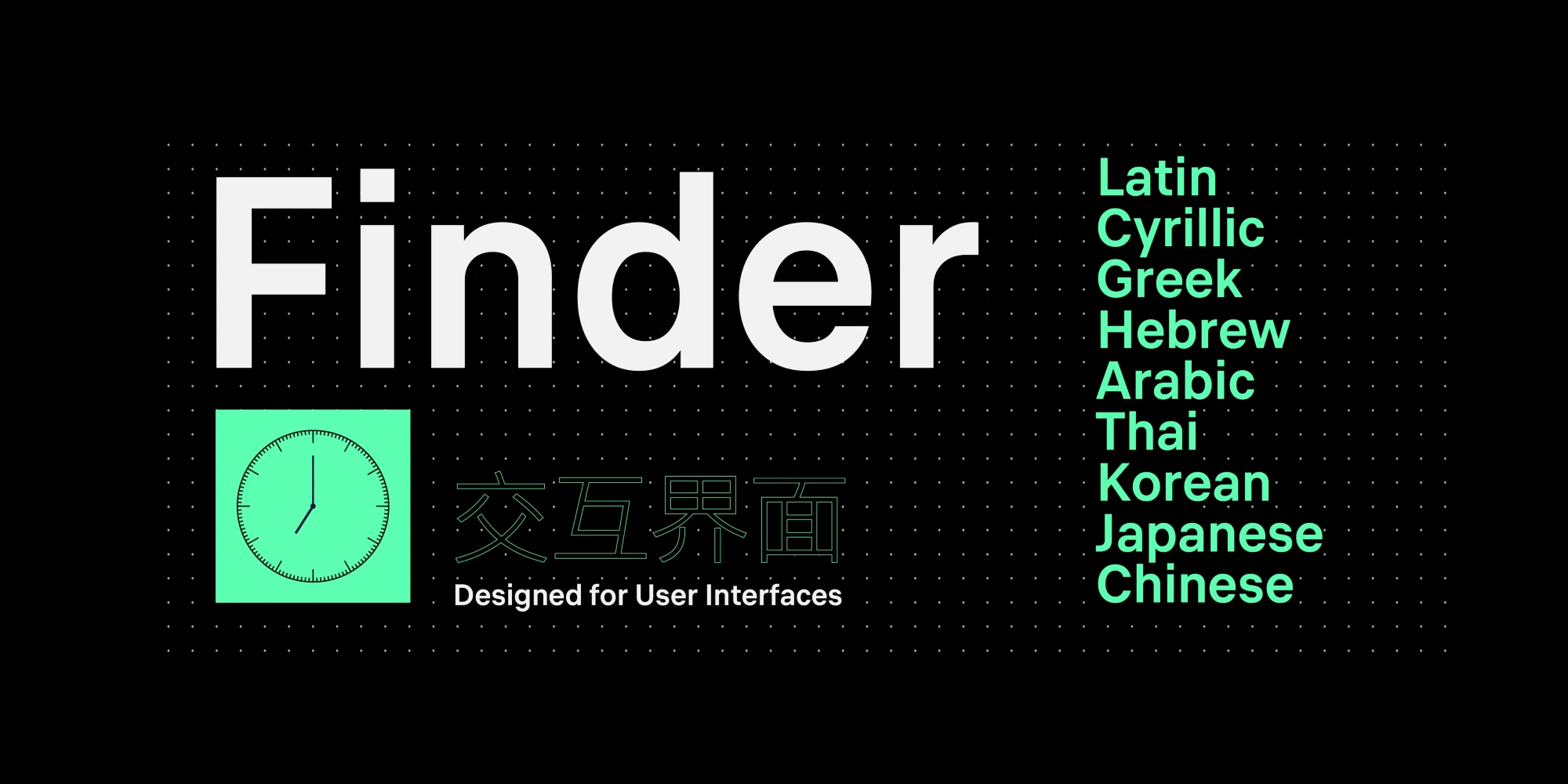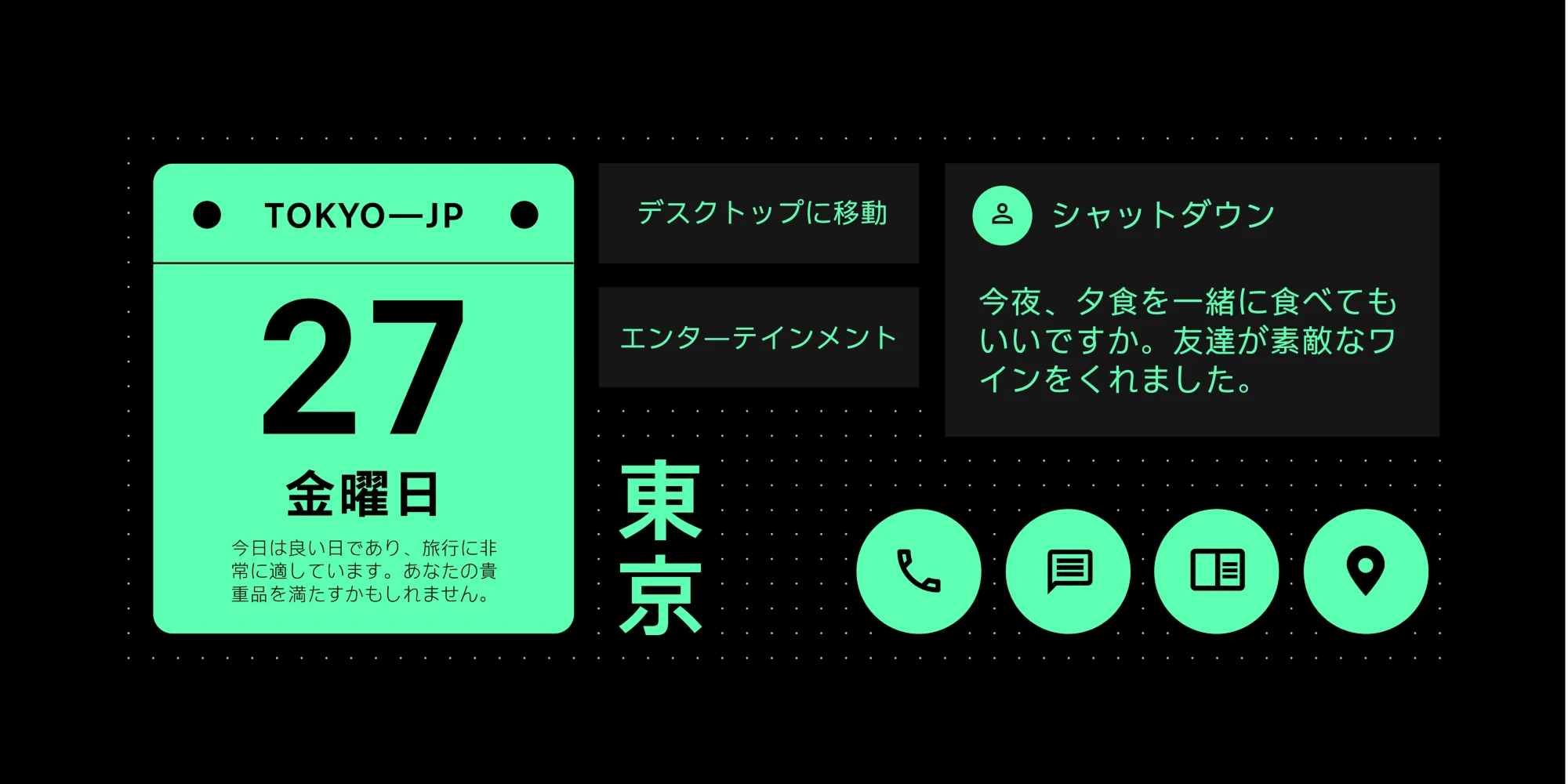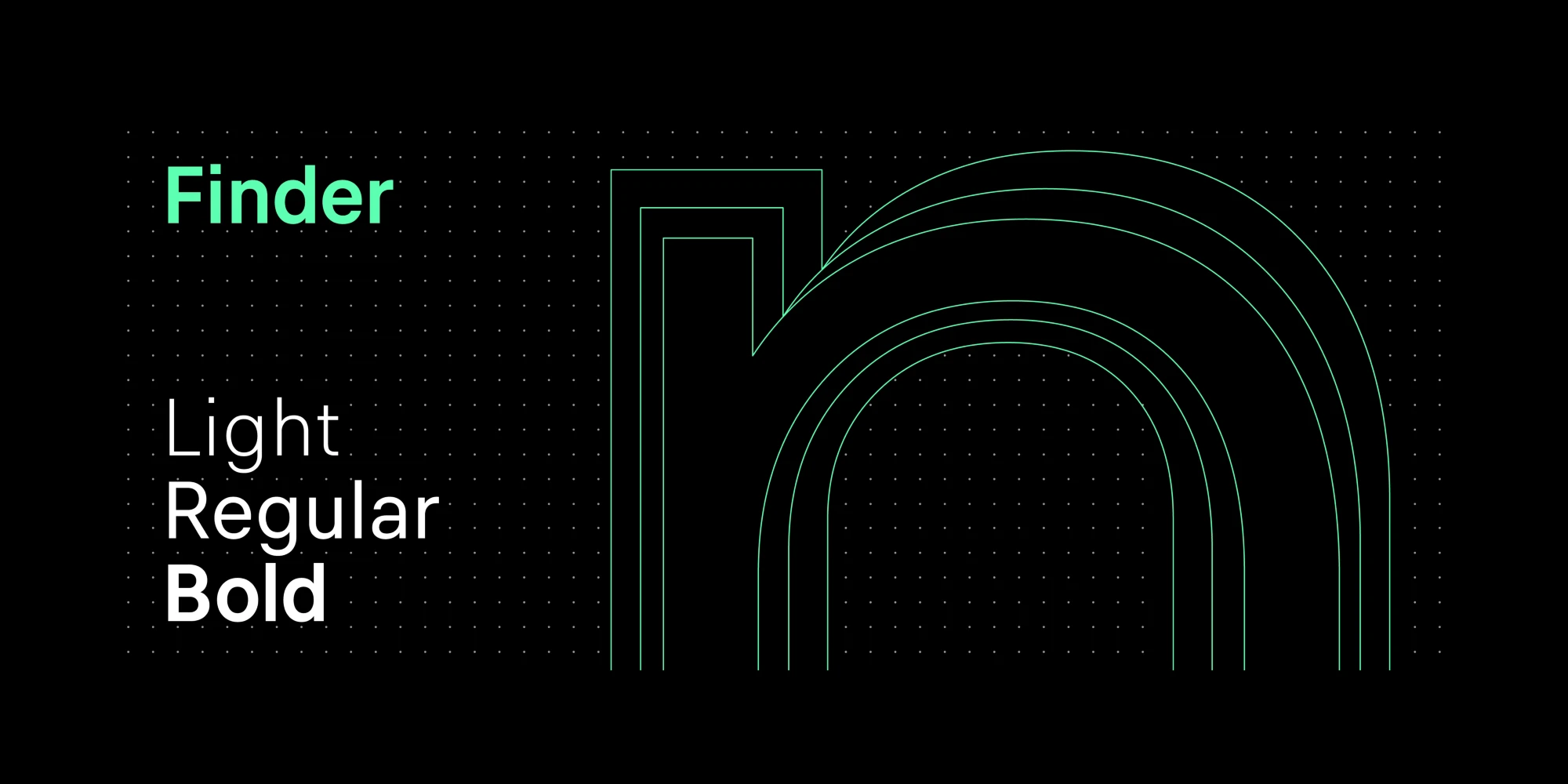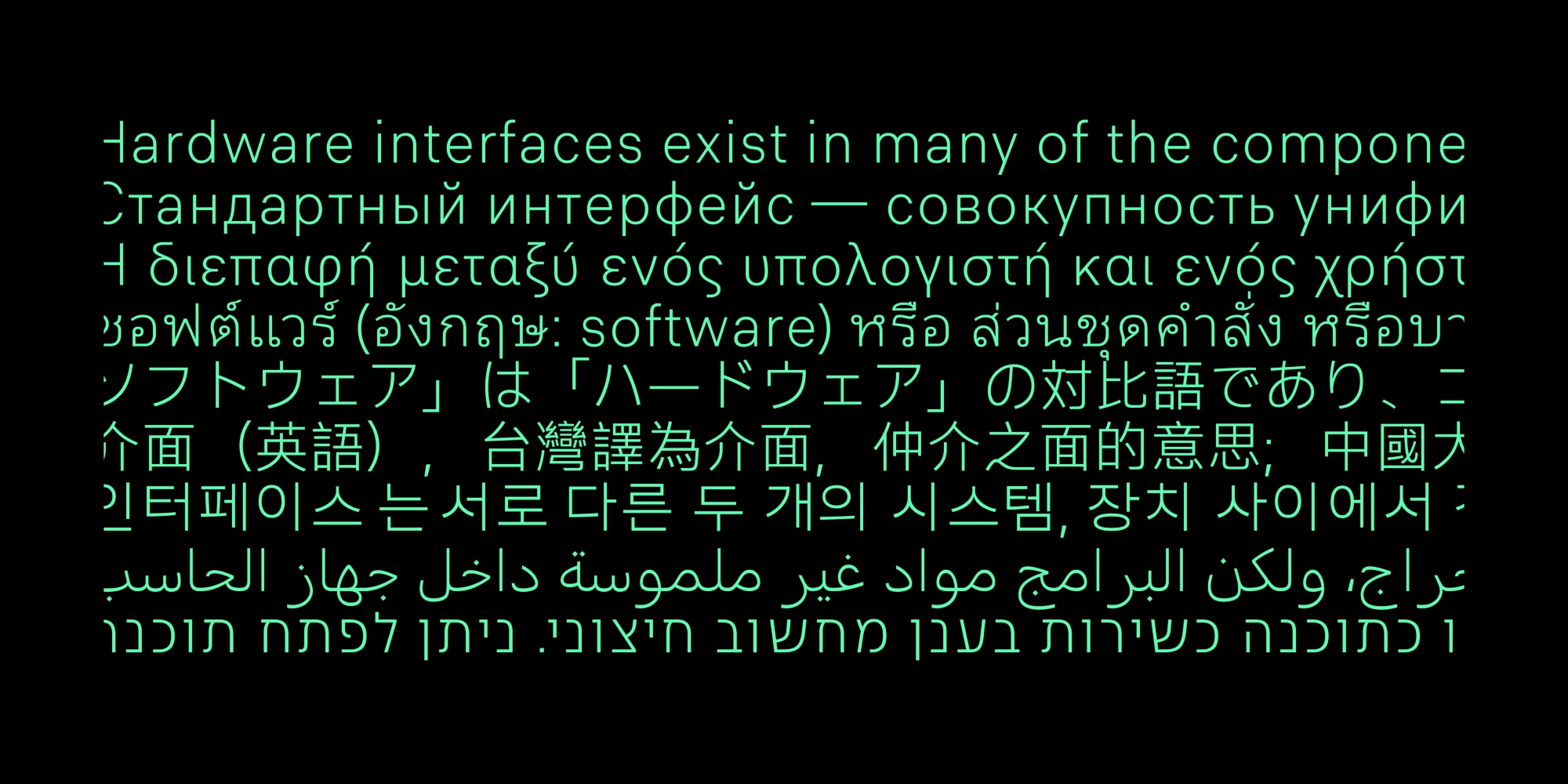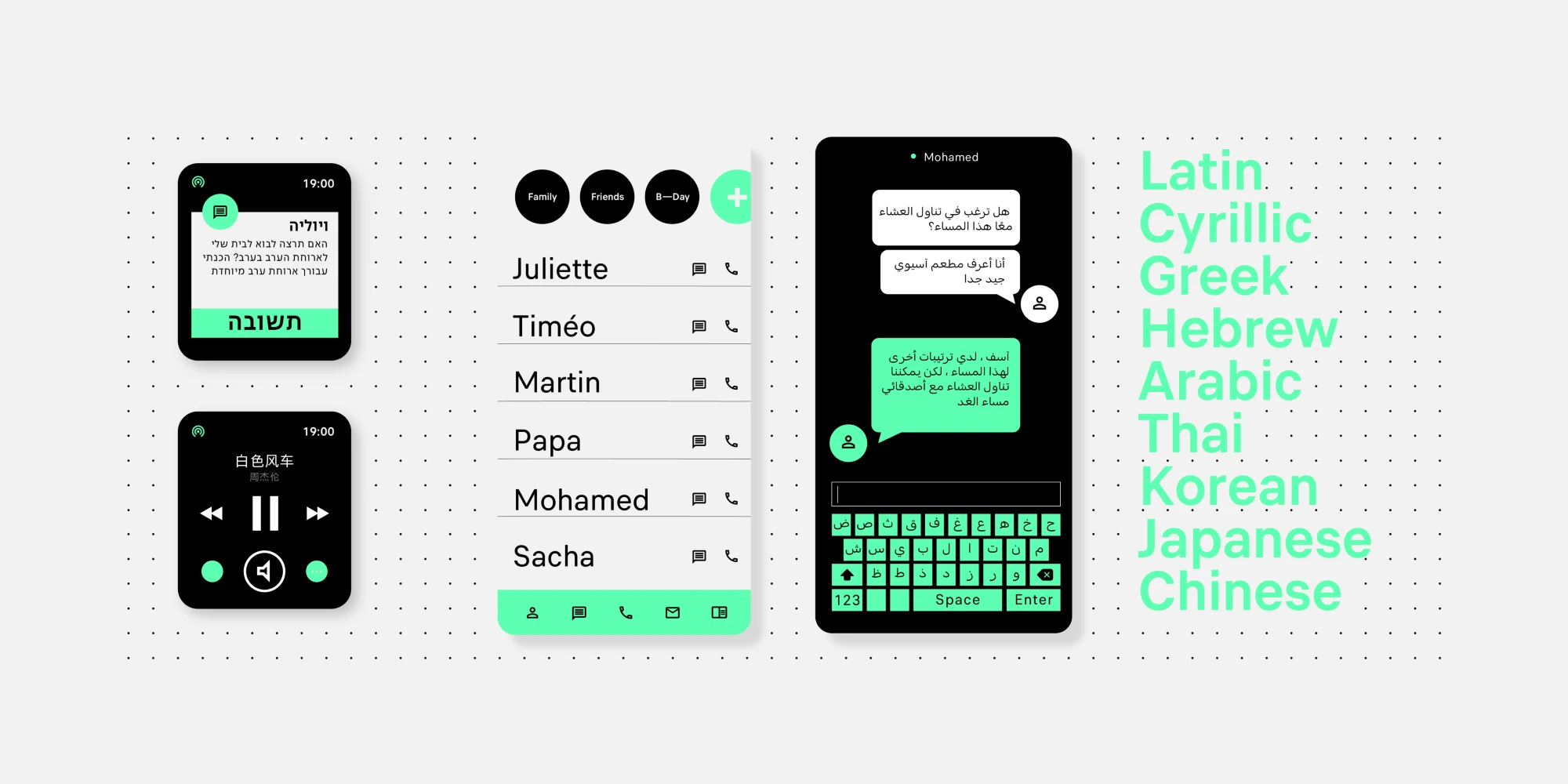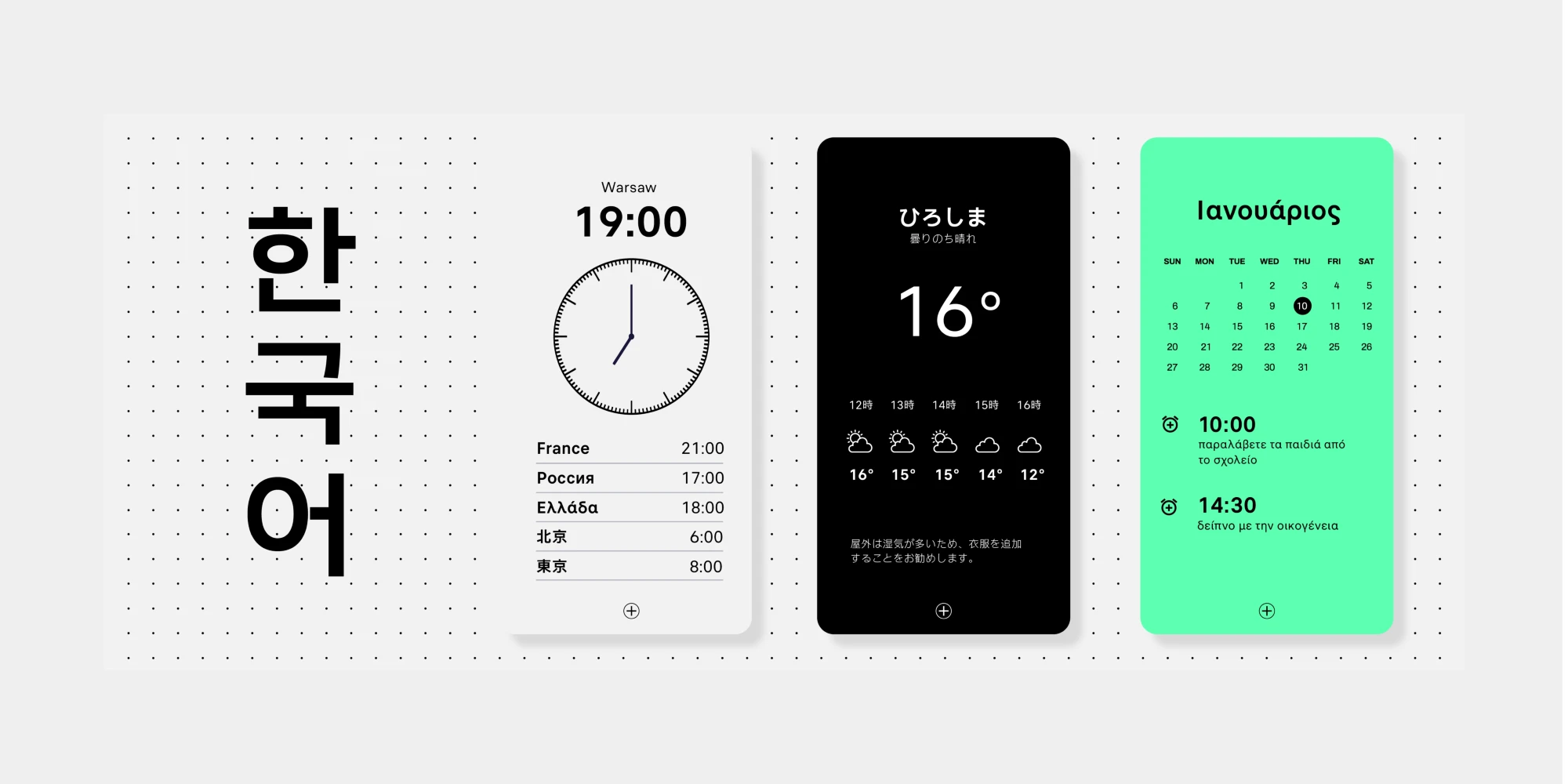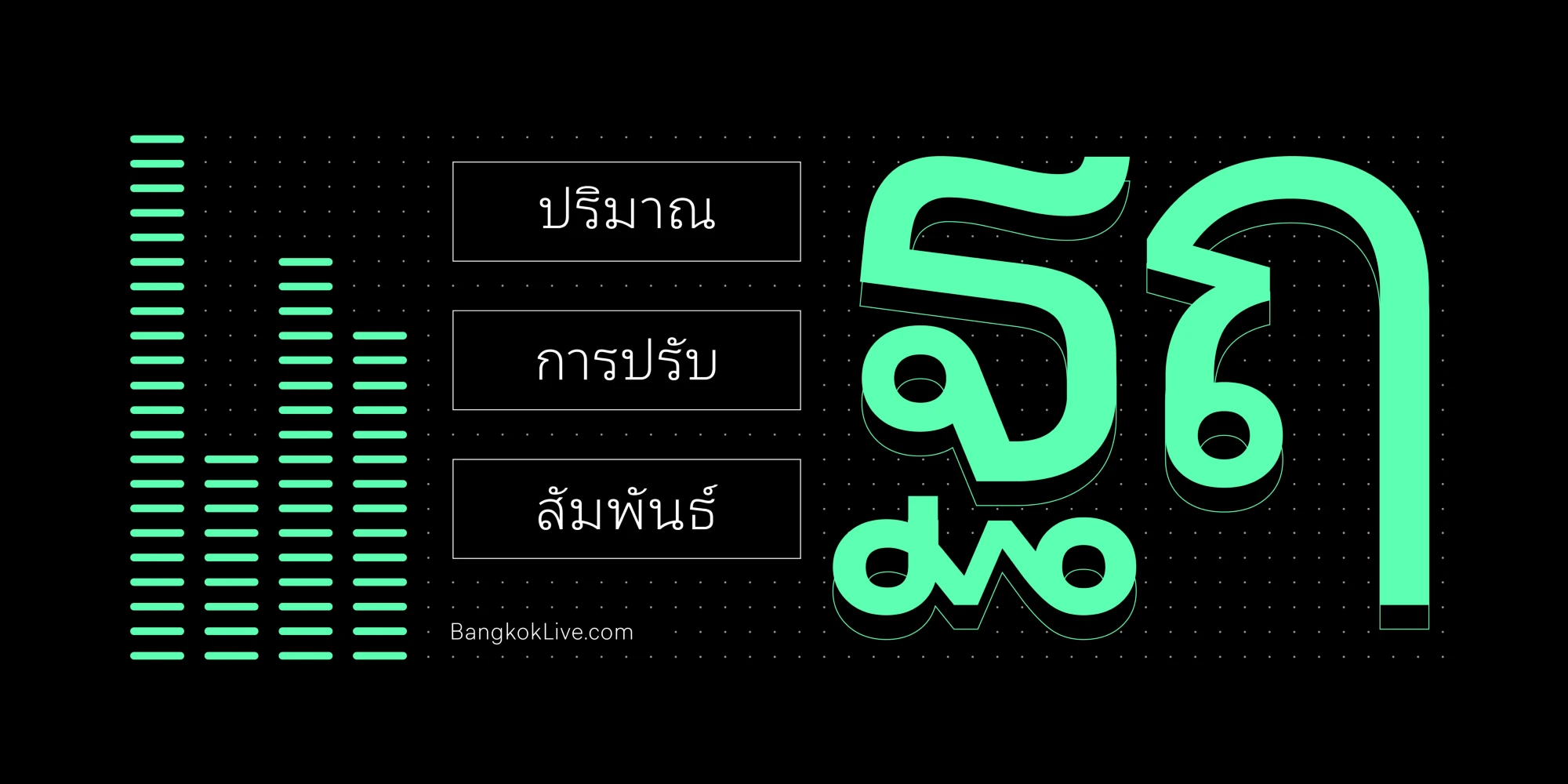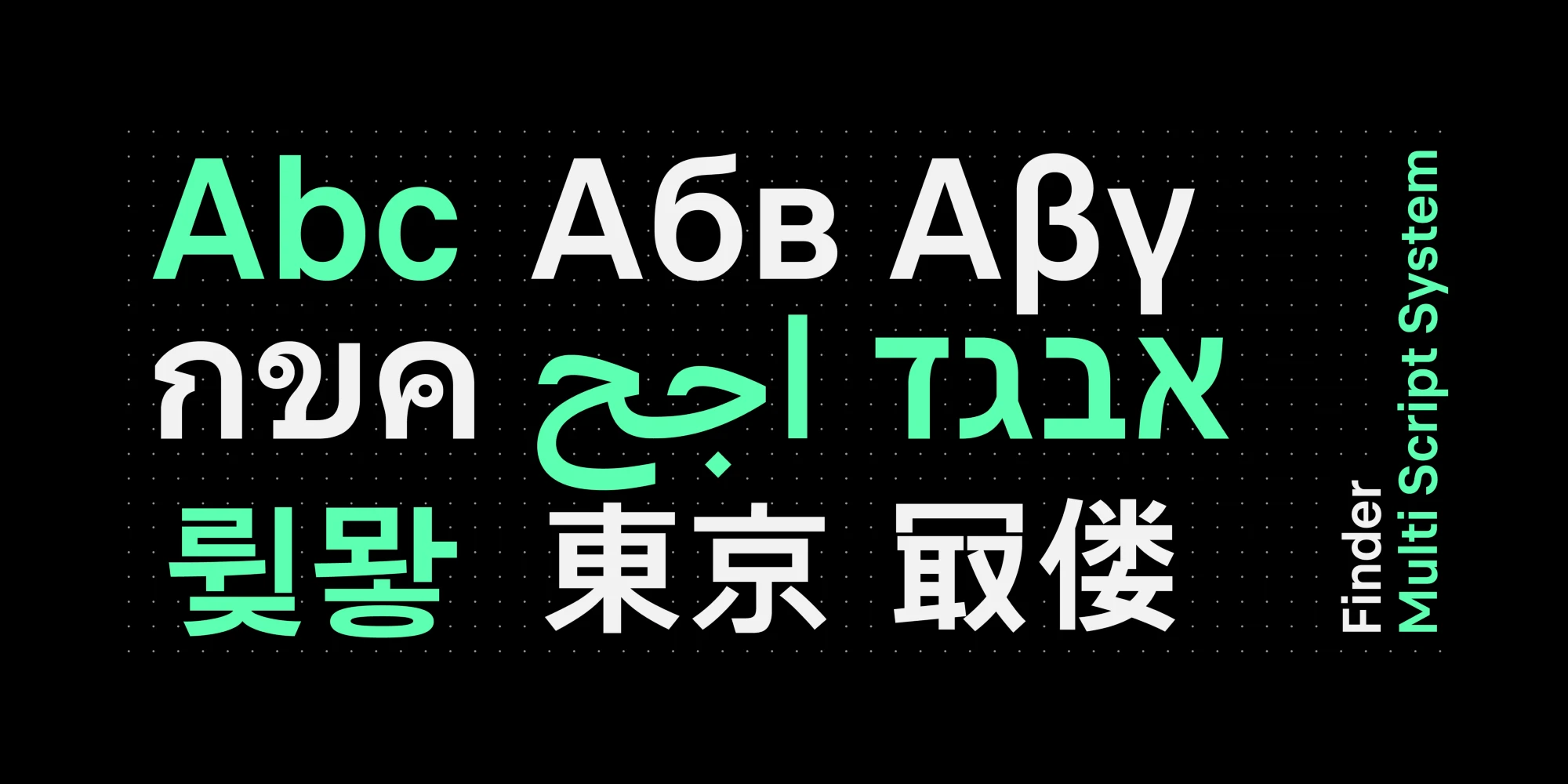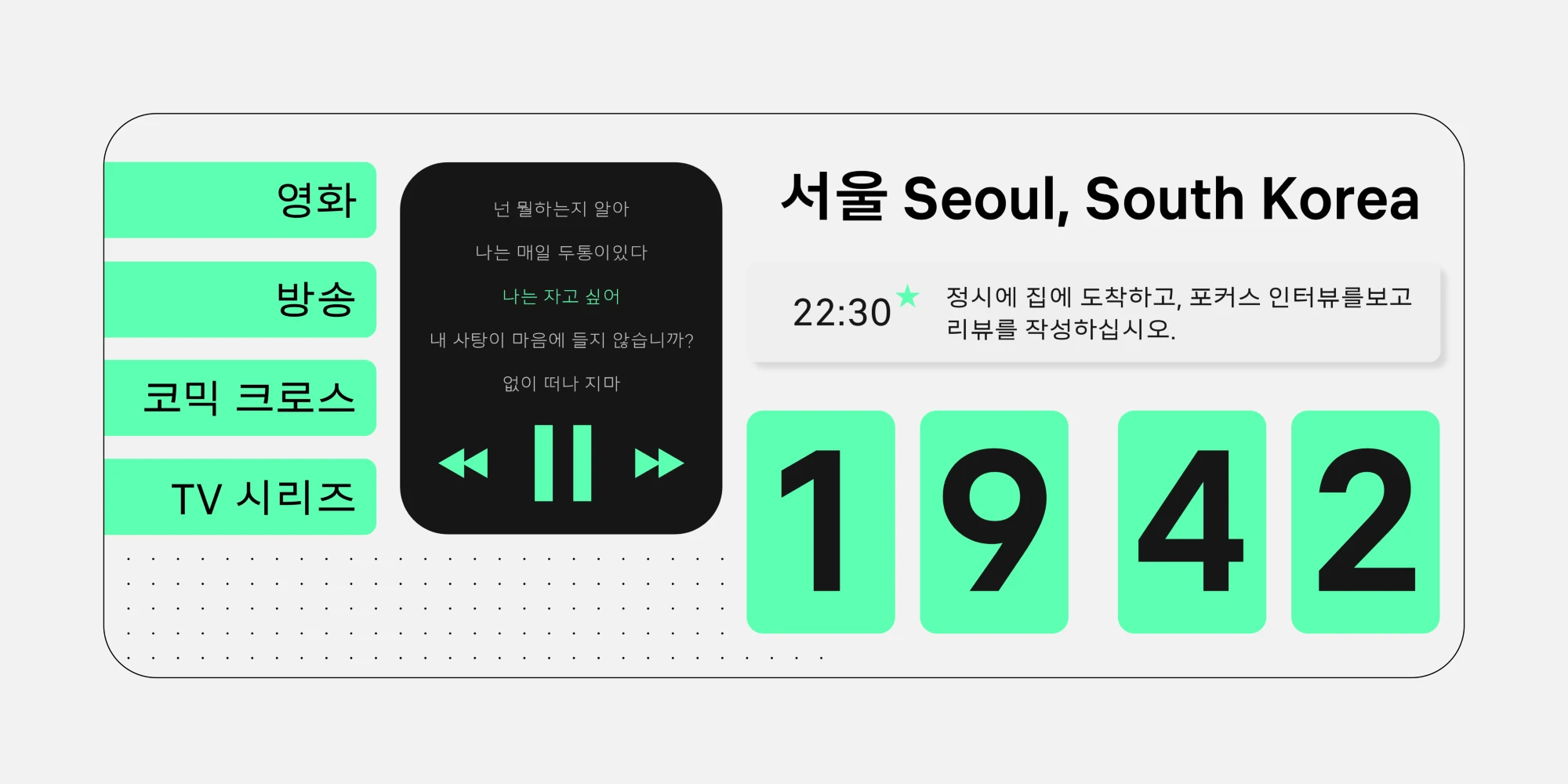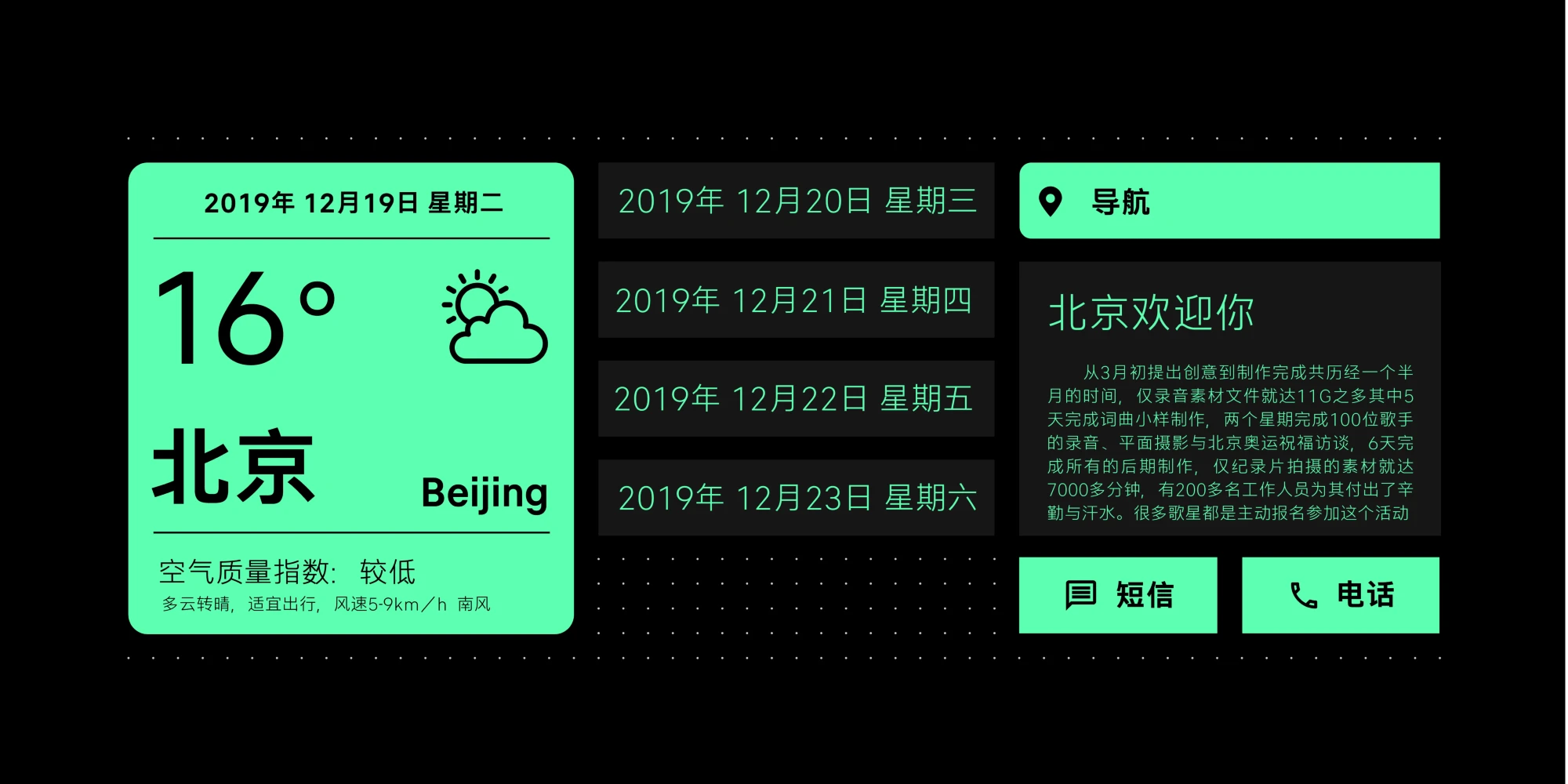
Finder is a versatile sans serif crafted for multi-script user interfaces. Its open forms, large counters, and generous spacing enhance legibility for designers in need of clarity at small sizes and are vital for dense screens and navigation. Supporting Arabic, Cyrillic, Greek, Hebrew, Latin, Simplified Chinese, Japanese, Korean, and Thai, Finder ensures a seamless global experience. Neutral and adaptable, it provides a cohesive typographic voice for UI, branding, and digital platforms worldwide.
Designed for User Interfaces.
Designed by
Black Foundry Designers
- Discretionary Ligatures
- Fractions
- Lining Numerals
- Proportional Numerals
- Stylistic Sets
- Superscript
- Tabular Numerals